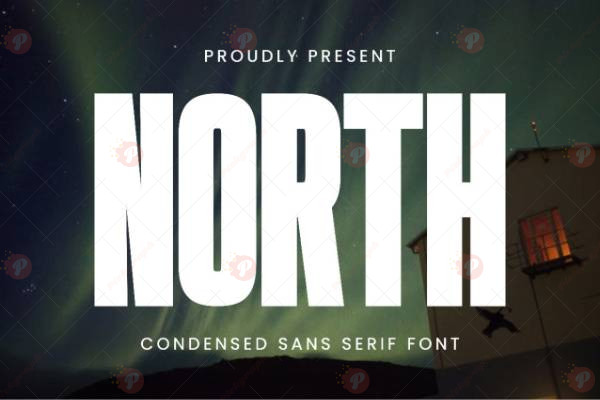
North Sans Serif Font Free
The North Sans Serif Font Free is a modern and versatile typeface built for clarity, simplicity, and professionalism. With its clean lines and balanced letterforms, this font is perfect for logos, branding, websites, editorial layouts, product packaging, social media content, and advertising designs.
Its minimalist style ensures excellent readability across print and digital platforms, making it an ideal choice for creative professionals, startups, and corporate branding projects.
• Typeface: Sans Serif
• Style: Clean / Minimal / Modern / Professional
• Perfect for: Logos, Branding, Editorial, Packaging, Digital Content, Social Media, Websites